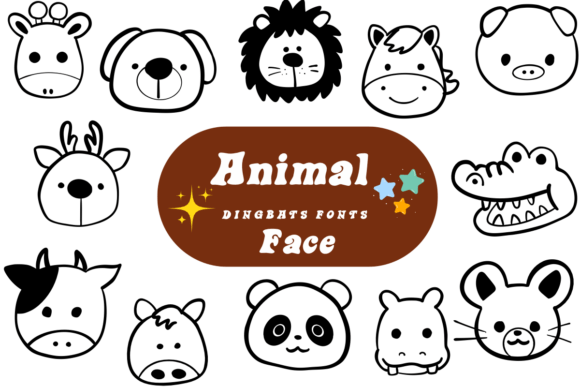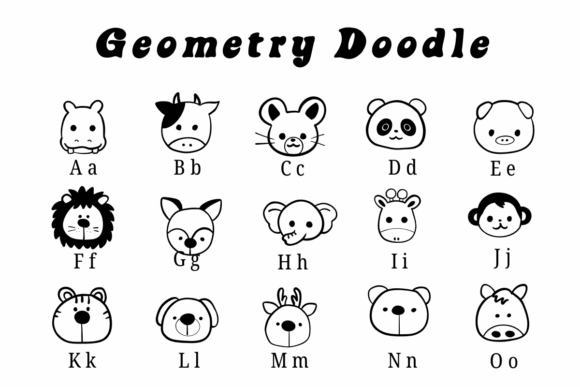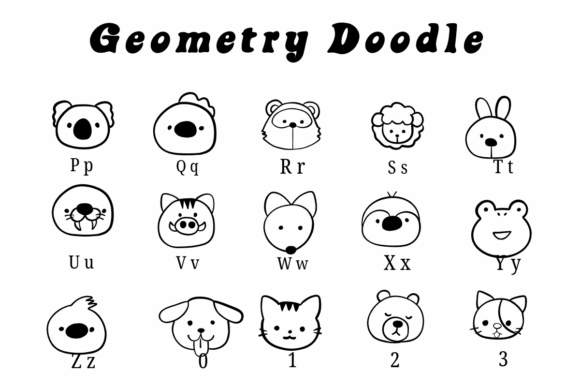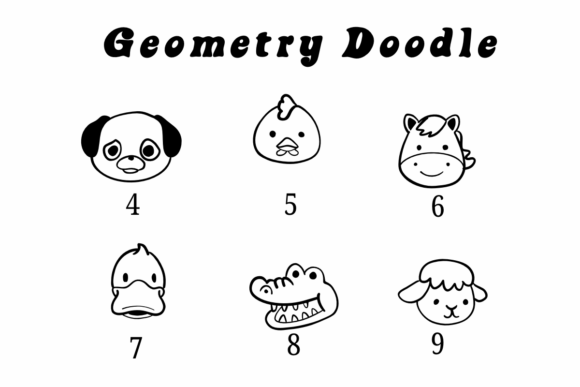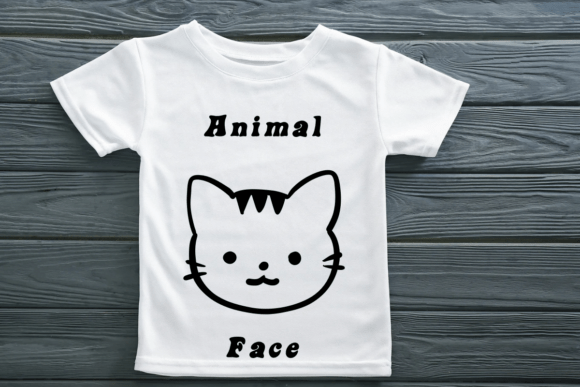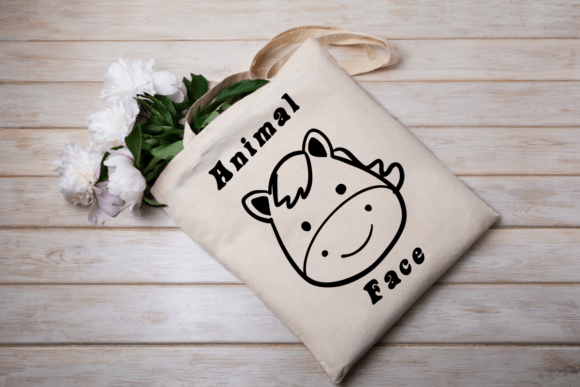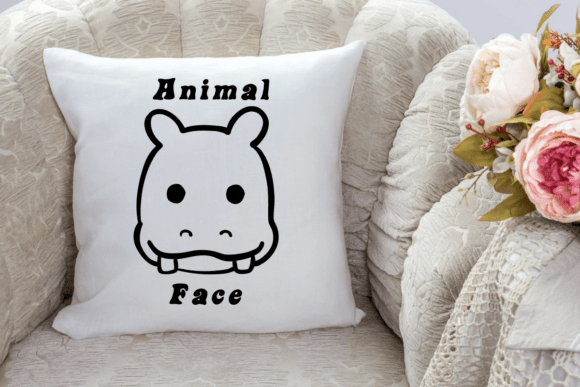
Bring Joy to Your Designs with Animal Face Font
Have you ever been working on a creative project and suddenly, a spark of inspiration hits? Maybe it’s the idea of a whimsical illustration, a playful icon, or a touch of personality to make your design stand out. For designers, moments like these are what make the job so rewarding. And that’s exactly where the Animal Face Font comes in – a delightful dingbats font that adds a touch of cuteness to your creative projects.
This charming font is perfect for designers looking to add a playful twist to their work. Whether you’re creating a children’s book, a social media graphic, or a product design, Animal Face Font is sure to bring a smile to your audience’s faces. Its versatility and ease of use make it a valuable addition to any designer’s toolkit.
Key Features of Animal Face Font
- Character Set: This font features a wide range of characters, including uppercase and lowercase letters, numbers, punctuation marks, and special characters, as well as animal faces and emoticons.
- Unique Characteristics: The Animal Face Font is known for its playful and whimsical design, featuring a wide range of animal faces and emoticons that can add a touch of fun and personality to any project.
Animal Face Font Review
Overall, I think the Animal Face Font is a fun and quirky addition to any design project. ✨ It’s perfect for adding a playful touch to kids’ websites, social media posts, or even advertising campaigns. The unique character designs are sure to grab attention and leave a lasting impression.
One of the standout features of the Animal Face Font is its versatility. ✨ You can use it to create a wide range of emotions and expressions, from happy and excited to sad and scared. The font also comes with a variety of animal characters, so you can mix and match to create the perfect combination.
- ⚠️ The font may not be suitable for formal or professional projects, as it can come across as childish or immature.
- ⚠️ Some of the character designs may be difficult to read or recognize, especially at smaller font sizes.
- ⚠️ The font may not be compatible with all operating systems or devices, which could lead to display issues.
Overall, I think the Animal Face Font is a great choice for designers who want to add a playful touch to their projects. While it may have some limitations, the benefits far outweigh the drawbacks. With a little creativity and experimentation, you can create some truly unique and eye-catching designs.
Animal Face Font is perfect for:
- Children’s birthday invitations and party decorations.
- Animal-themed social media posts and advertisements.
- Children’s book illustrations and educational materials.
Remember to keep your design simple and clear to ensure the Animal Face Font is easily readable.